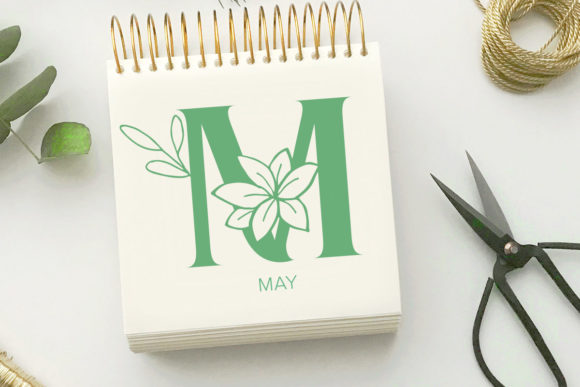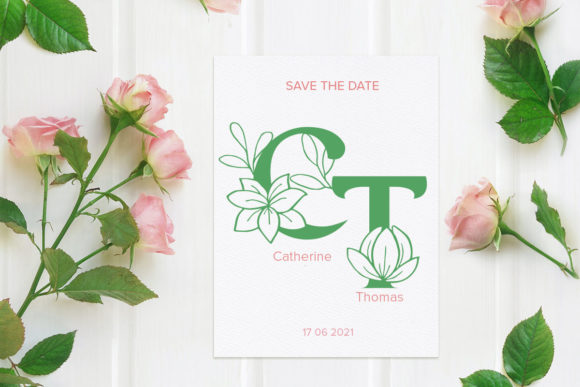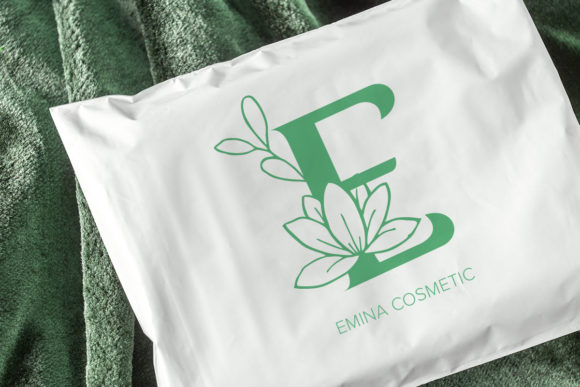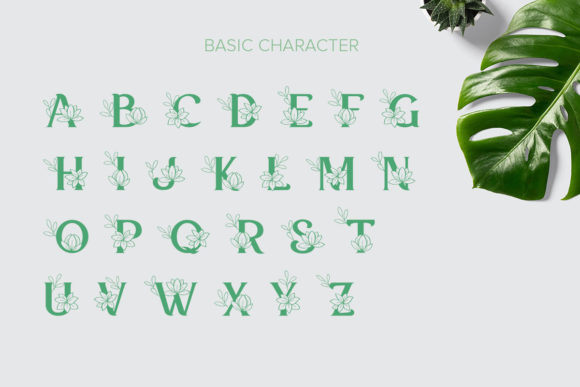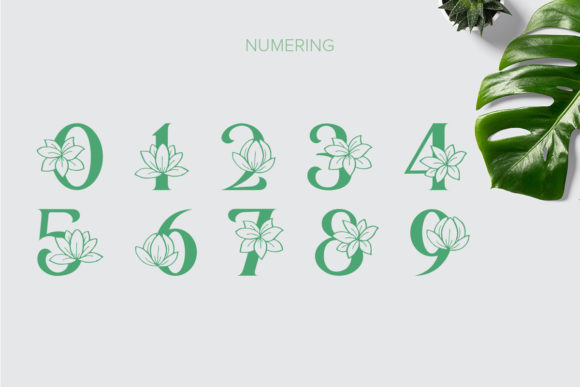
The Georgia Monogram Font: A Fresh and Lovely Decorative Delight
I’ll never forget the moment I stumbled upon the Georgia Monogram font. I was working on a wedding invitation project for a client, and I was struggling to find the perfect font that would capture the essence of their special day. The invitation needed to be elegant, yet playful; classic, yet modern. As I scrolled through my font library, I came across Georgia Monogram, and it was love at first sight! ✨
Georgia Monogram is a fresh and lovely decorative font that has become a staple in my design toolkit. Its authentic feel and versatility have won me over, and I’m excited to share my experience with you. In this article, we’ll explore the ins and outs of Georgia Monogram, including its features, how to use it on different platforms, and some similar font alternatives.
- ✨ Elegant and sophisticated design, perfect for wedding invitations and formal events
- ✅ Highly versatile, suitable for various design projects, from social media posts to greeting cards
- 💕 Beautifully crafted monograms and glyphs, adding a touch of personality to any design
- 🎉 Easy to read and understand, even in smaller font sizes
While Georgia Monogram is an excellent font, it’s not without its quirks. 🤔 For instance:
- ⚠️ Some users may find the font a bit too ornate for certain design projects, such as minimalist branding or simple signage
- ⚠️ The font may not be suitable for very small font sizes, as some details may get lost
Georgia Monogram was designed with inspiration from traditional calligraphy and hand-lettering. The font’s creator aimed to craft a beautiful, elegant font that would capture the essence of special moments. The result is a font that’s both classic and modern, perfect for a wide range of design projects.
Q: What type of projects is Georgia Monogram best suited for?
A: Georgia Monogram is perfect for wedding invitations, formal events, social media posts, greeting cards, and other creative projects that require an elegant, yet playful touch.